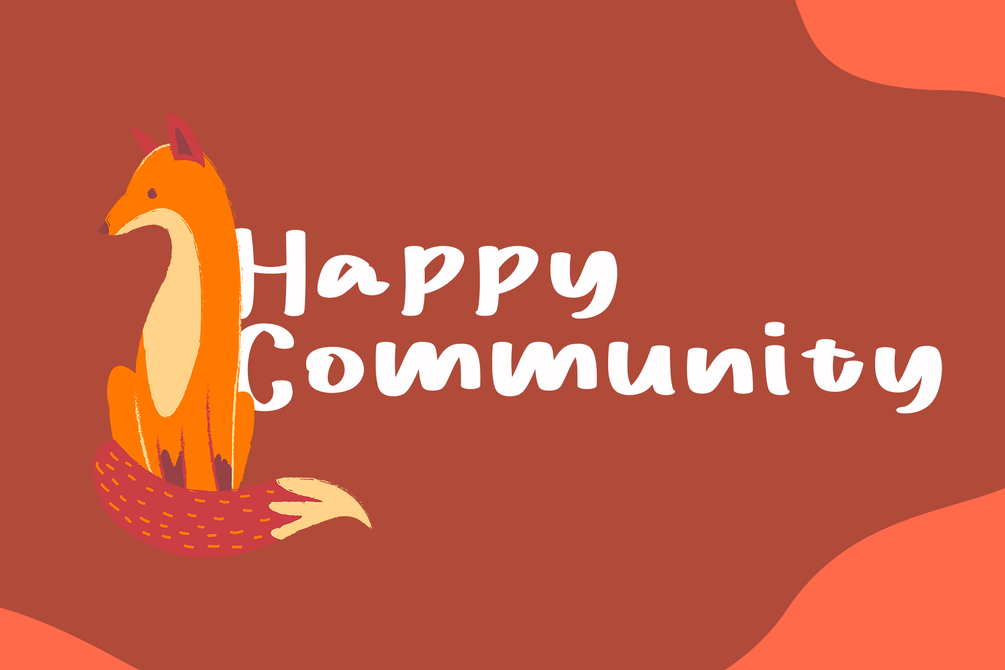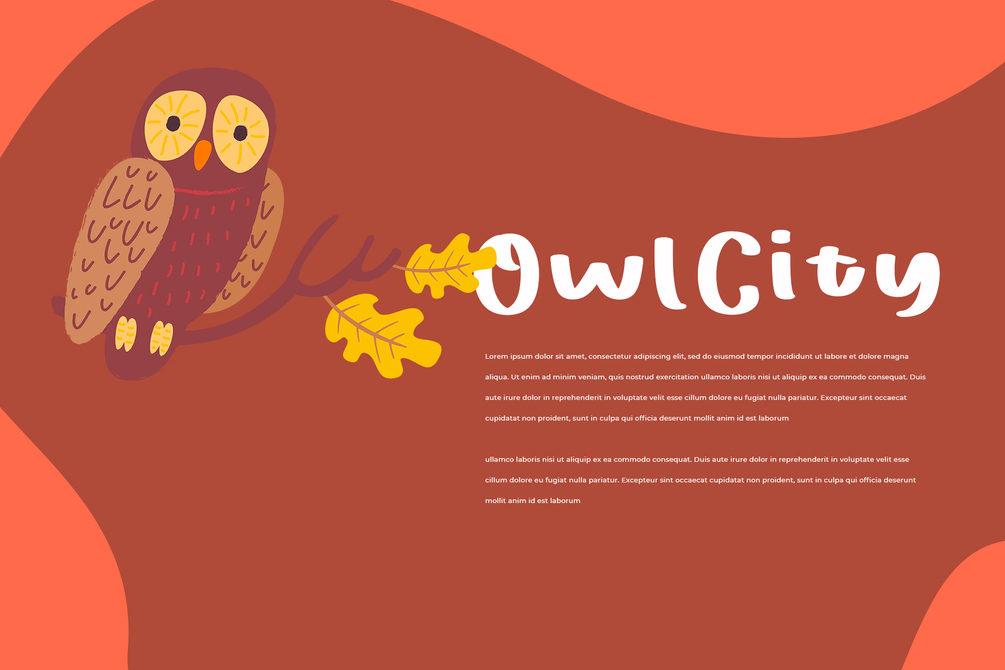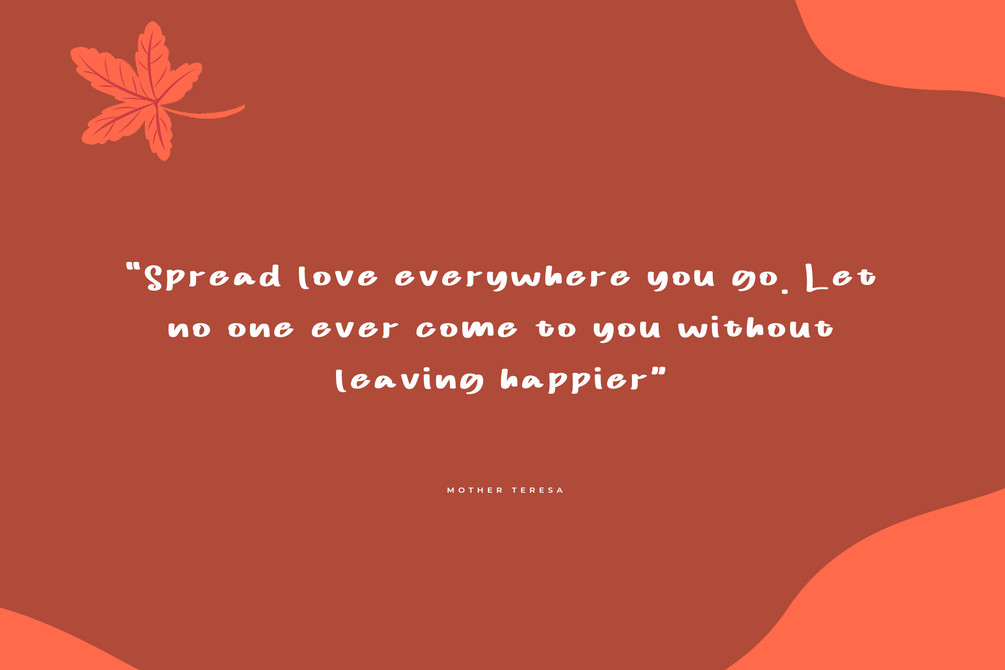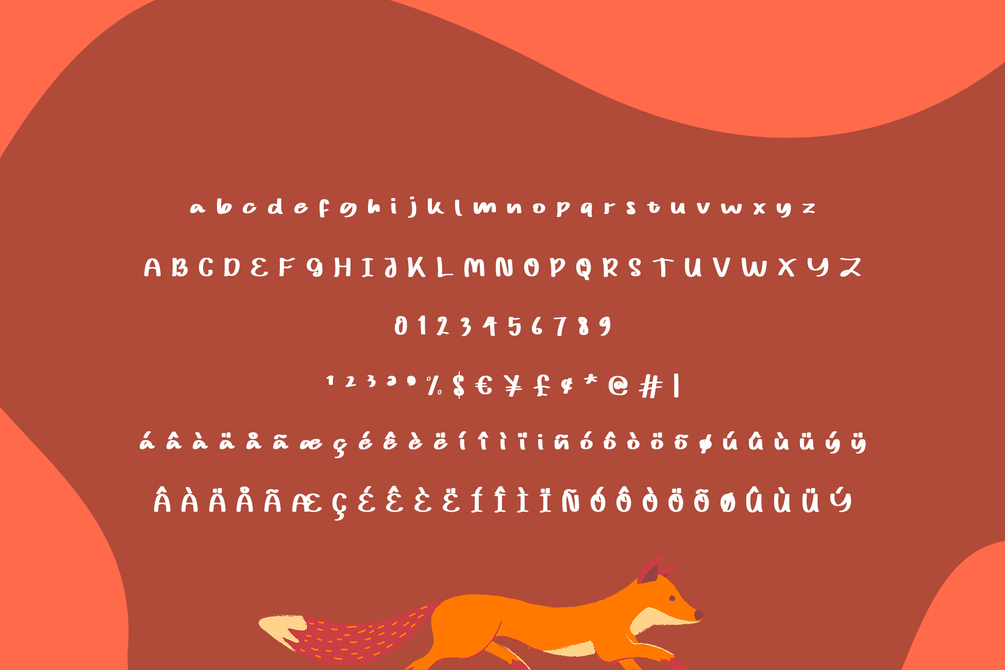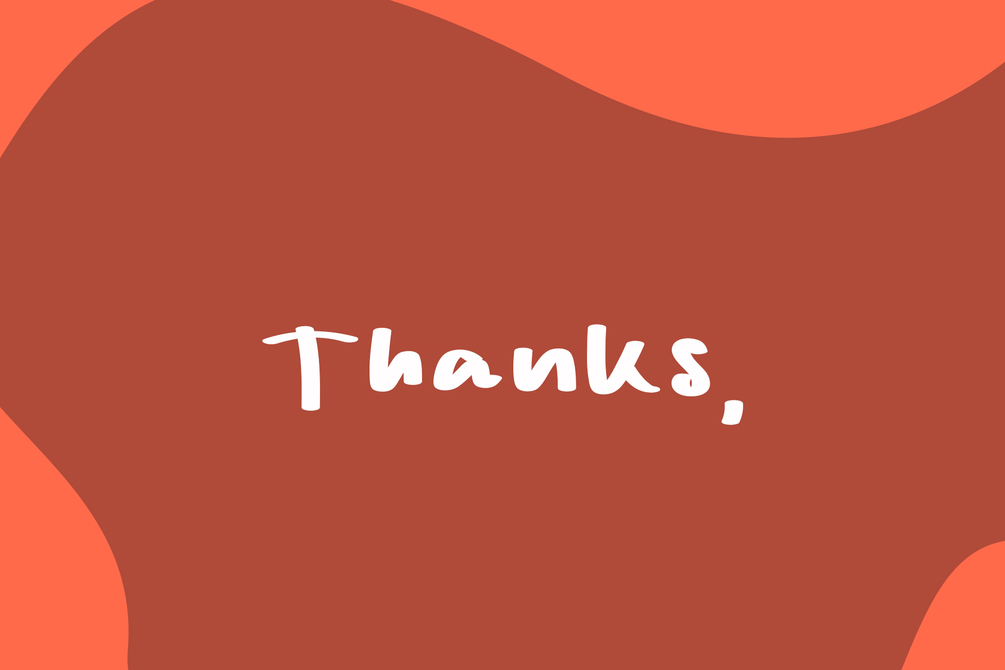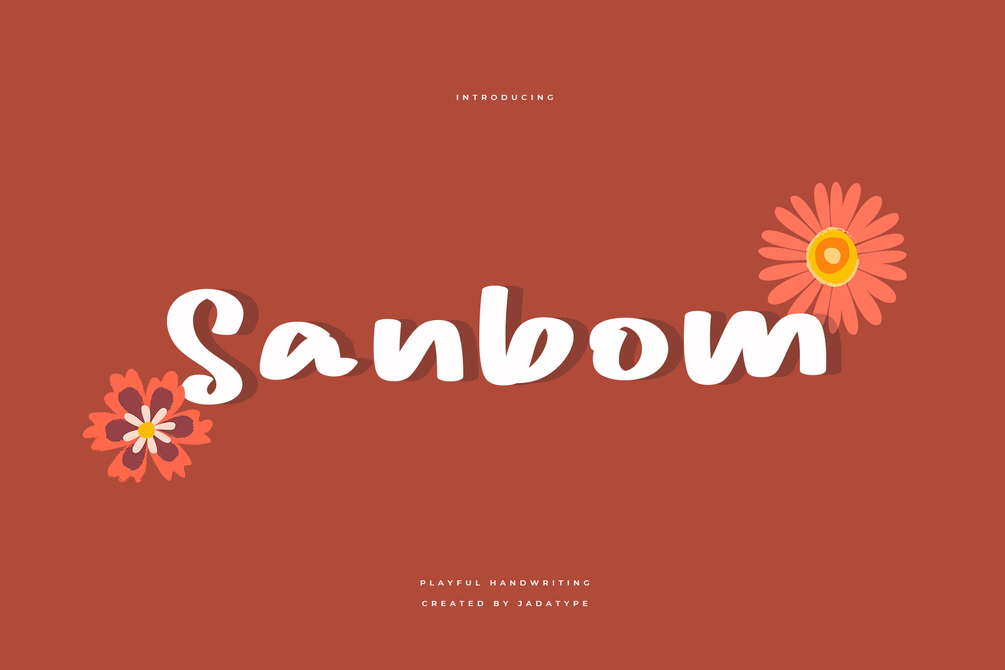
Sanbom Font
Sanbom is a font with playful handwritten. suitable for social media, branding, craft, products, handwritten, and so on. contains standard English letters, numbers, punctuation, and several accents that support multilingualism.